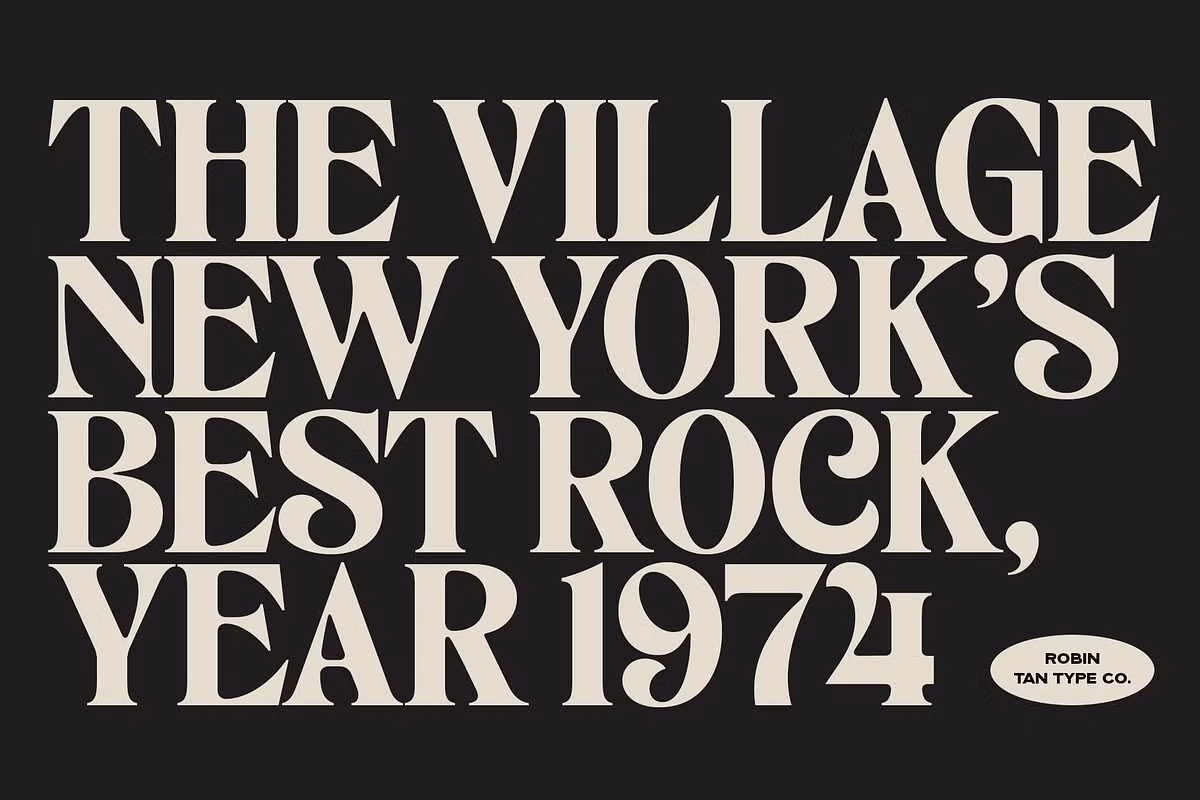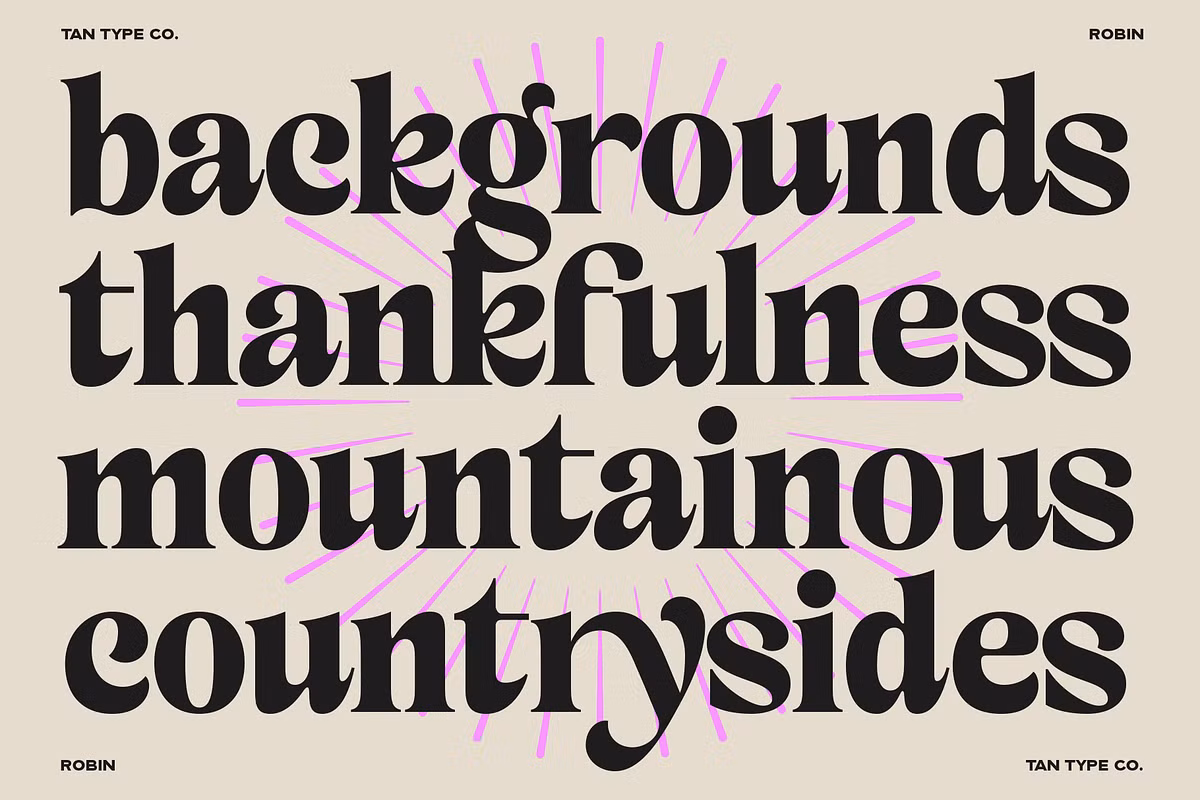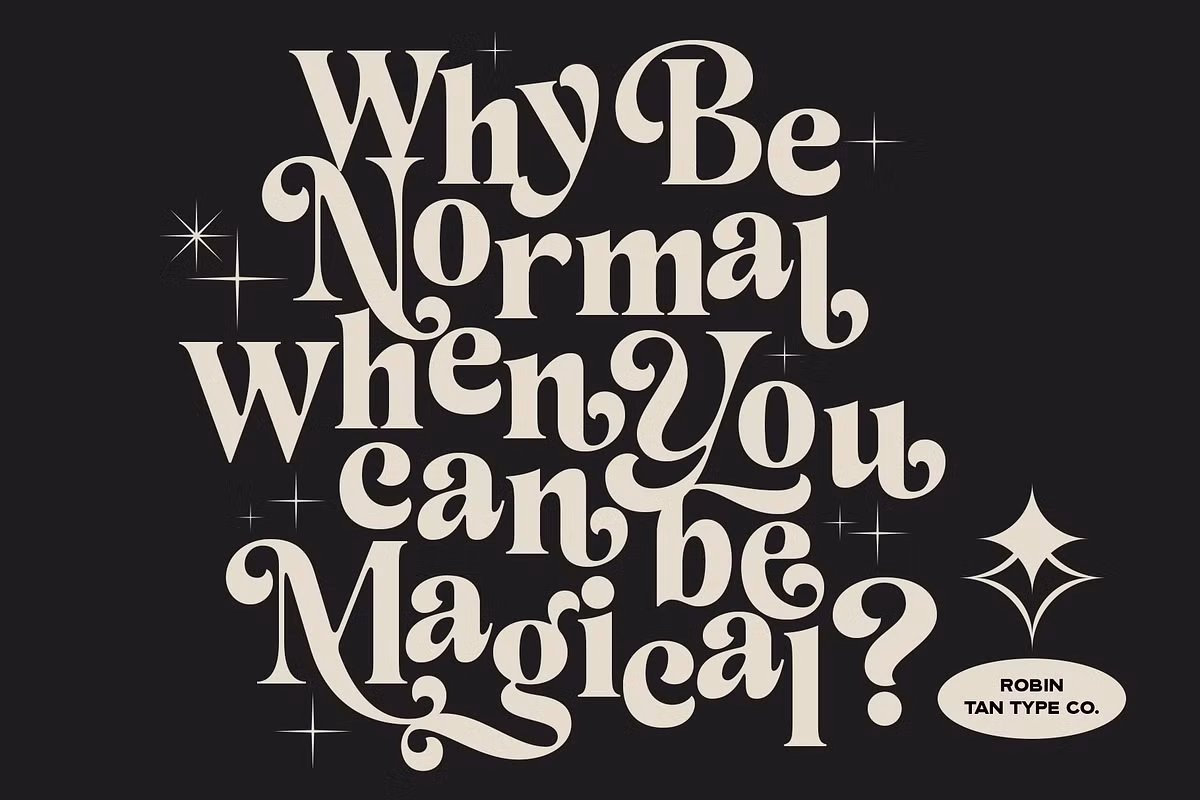
TAN – ROBIN: Bold Retro Display Typeface for Impactful Design
TAN-Robin is not just a font, it’s a way to make a statement. This bold, retro display font is designed to grab attention and hold it. With its thick lines and smooth curves, Robin brings together old and new in a unique way. It’s perfect for designers who want to make an impact with their work. Whether you’re creating a logo, poster, packaging, or album cover, Robin gives you the classic feel and confident look you need to take your designs to the next level. Its vintage style and modern twist make it a great choice for anyone looking to add some personality to their projects.
Design Style of TAN-Robin
The TAN-Robin design has a really bold look and a retro feel to it. What makes it stand out is the thick lines that give it a strong and stable appearance, while the soft curves make it seem friendly and easy to approach. Every character is designed to grab your attention, so it’s easy for people to connect with the text. This mix of different elements makes Robin not just nice to look at, but also really versatile – it can be used in lots of different design situations. The boldness and retro style of TAN-Robin make it a great choice for designs where you want to make a statement. At the same time, the soft curves balance out the boldness, so it doesn’t feel too overwhelming. Overall, the unique combination of elements in TAN-Robin makes it a really useful font for designers who want to add some personality to their work.
What makes TAN-Robin really special is the way its characters are shaped – they’re one of a kind. The font has some amazing features like special ligatures and alternates that let you get creative with your design. These are super useful when you’re working on a project where you want to show some personality, because they help you convey the brand’s tone in a really effective way. By using different character shapes, you can keep your typography looking new and exciting, which adds a whole new level of depth to your designs. This means you can create something that really stands out and catches people’s attention.
Nostalgic Yet Modern
Robin has a classic feel to it, like the old typography from years ago, but it still looks fresh and modern. This mix of old and new makes it perfect for projects that want a retro vibe, or for designs that need a touch of vintage style. What really sets TAN-Robin apart is how it can take the best of old-school design and blend it with a modern look, making it a great choice for designers who want to make an impact. It’s a font that can add a lot of character to a design, and its versatility is what makes it so special. Whether you’re working on a project that needs a nostalgic feel or something that’s more contemporary, Robin can help you achieve the look you want. Its unique balance of old and new elements is what makes it so appealing to designers who want to create something truly memorable.
Use Cases for TAN-Robin
TAN-Robin shines in various design scenarios, making it a highly versatile typeface. Here are some of the key use cases where this font can be particularly effective:
- Logos: TAN-Robin’s bold presence makes it an excellent choice for logo design, ensuring that your brand stands out in a crowded marketplace.
- Posters: Whether for events, promotions, or artistic displays, Robin’s eye-catching design can draw attention and convey messages effectively.
- Packaging: For products that require a distinctive visual identity, using TAN-Robin on packaging can create a memorable first impression.
- Headlines: In editorial design, bold headlines are crucial. Robin’s strong character shapes ensure that your headlines capture readers’ attention.
- Album Covers: Music is often associated with visuals. Robin’s retro vibe makes it a perfect fit for album covers that aim to evoke a sense of nostalgia.
Pairing Suggestions for TAN-Robin
While TAN-Robin is striking on its own, it can also be paired with complementary typefaces to enhance your designs further. Here are some pairing suggestions that work well with Robin:
- Sans-serif Fonts: Pairing Robin with a clean sans-serif font like Montserrat or Open Sans can create a modern contrast, highlighting the retro elements of Robin while maintaining readability.
- Serif Fonts: For a more classic look, consider using a serif font like Playfair Display alongside Robin. This combination can evoke a sense of timeless elegance.
- Display Fonts: If you want to maintain a playful and bold aesthetic, pairing Robin with another display font can create a dynamic visual hierarchy. Fonts like Bebas Neue can complement Robin’s character shapes beautifully.
TAN-Robin is a typeface that really stands out from the crowd, with its bold and retro style that’s both nostalgic and modern at the same time. What makes it so special is its unique character shapes, which give it a lot of versatility – you can use it for all sorts of things, like logos, packaging, and everything in between. Whether you’re going for a playful, classic, or eye-catching look, TAN-Robin brings a timeless retro charm to your designs. Plus, it supports lots of languages and works with most design software, making it a great addition to any designer’s toolkit. With TAN-Robin, you can create designs that really make a lasting impact – it’s all about embracing its boldness and letting your creativity shine. So, if you want to add some excitement to your designs, TAN-Robin is definitely worth checking out. Its unique style and versatility make it perfect for designers who want to try something new and make their designs stand out.